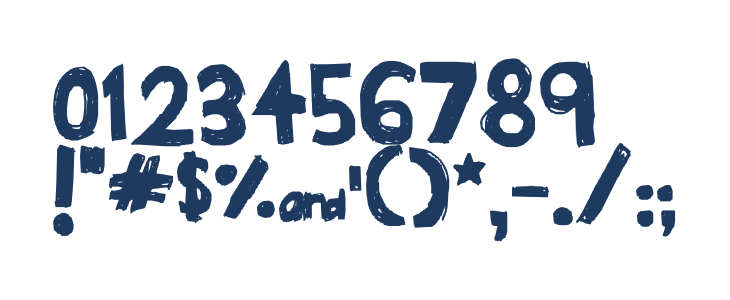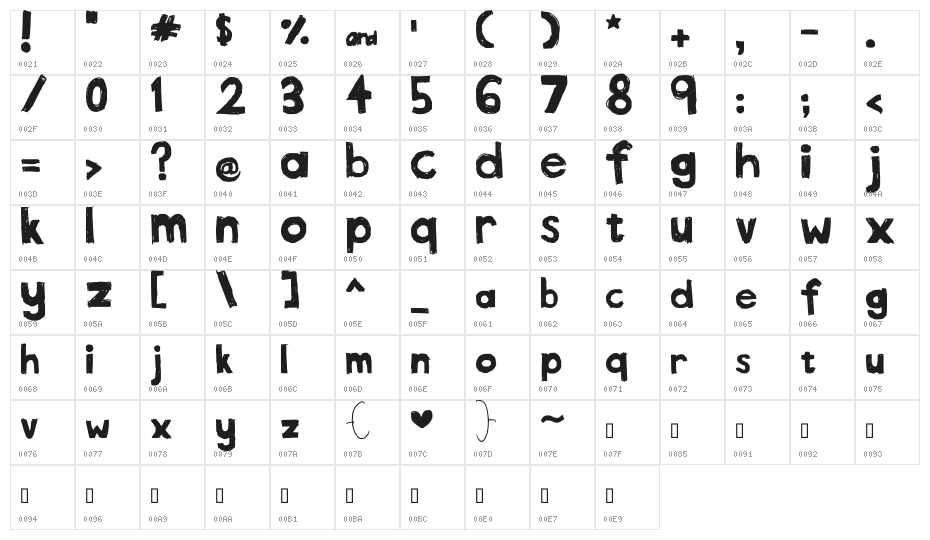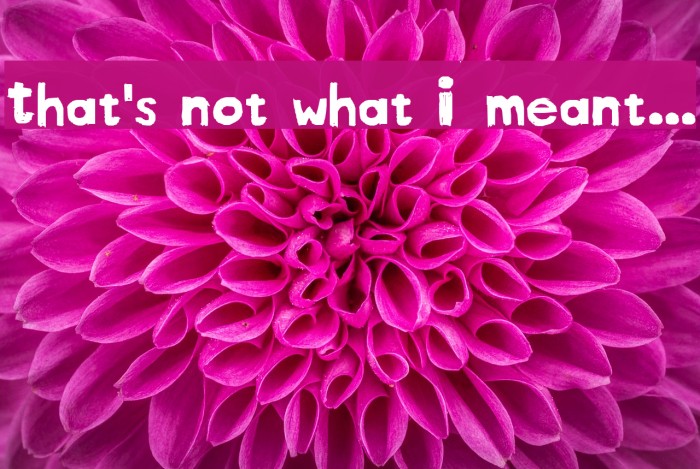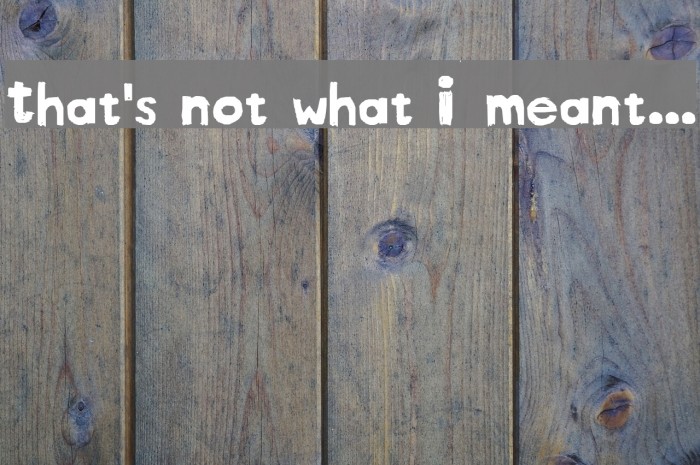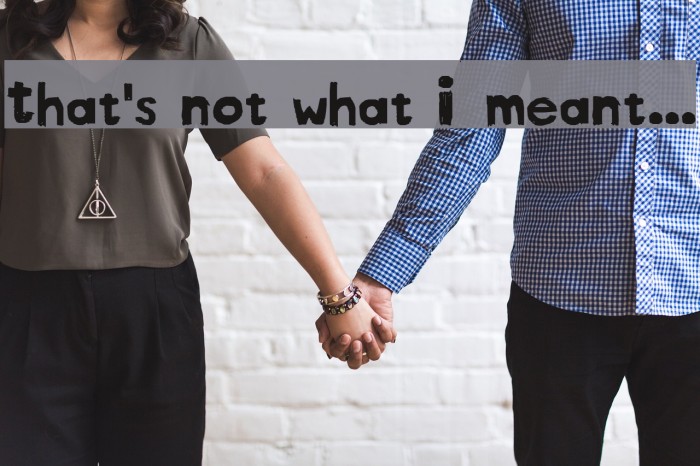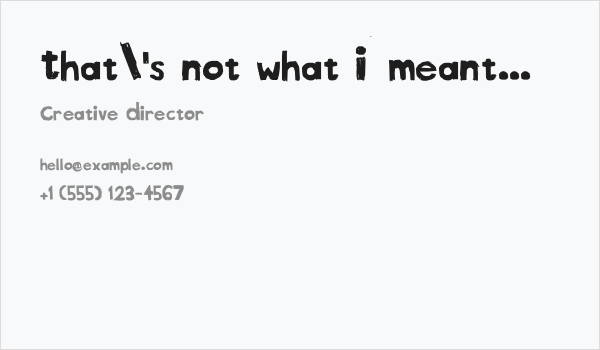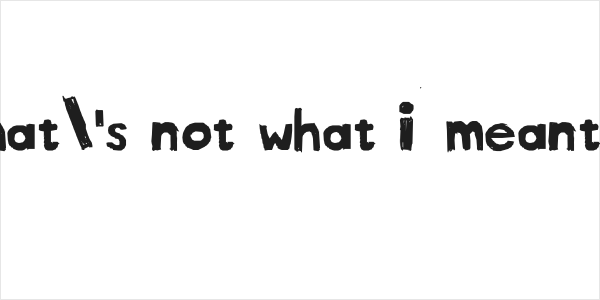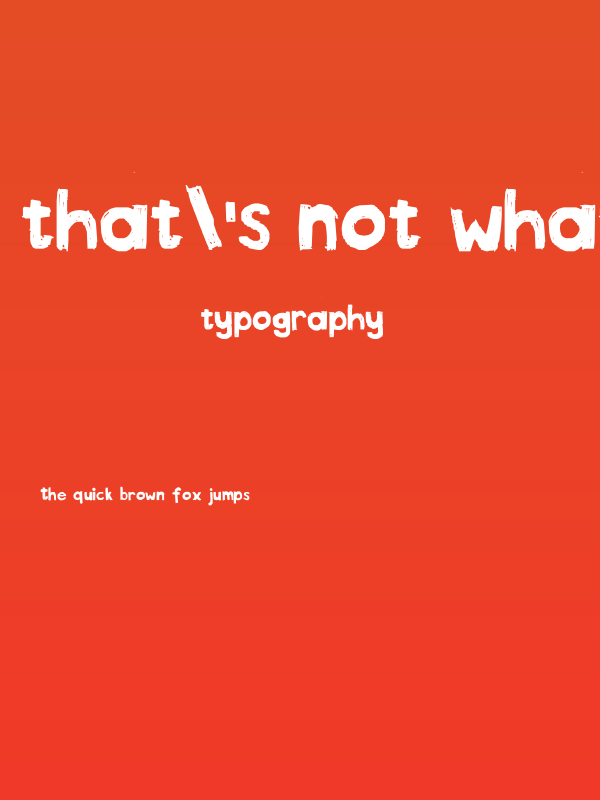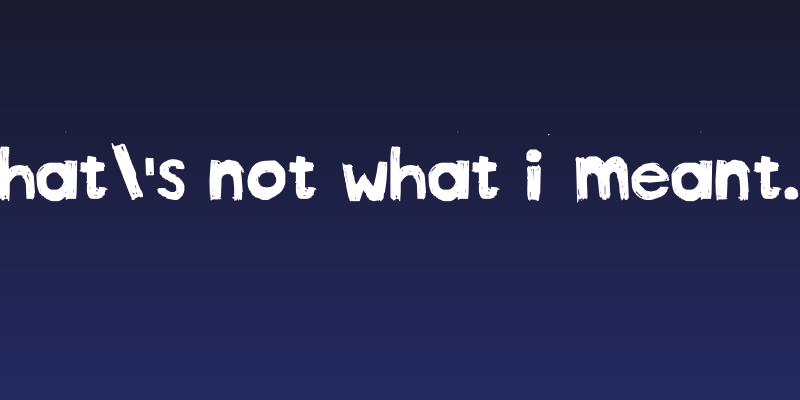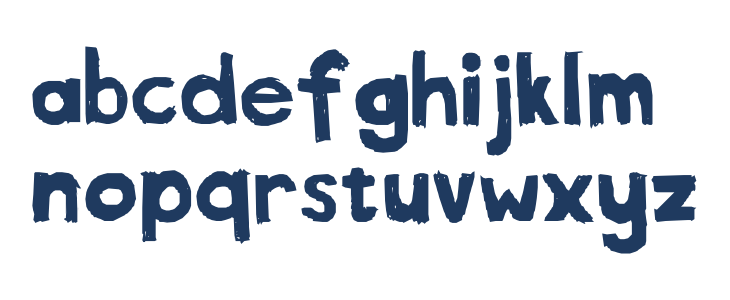
That's not what I meant... Font
That's not what I meant... Description
This font features a bold and expressive style with a hand-painted appearance. The characters are irregular and slightly rough around the edges, giving it a raw, artistic feel. The strokes are thick and uneven, adding to its dynamic and energetic look. It captures a sense of spontaneity and creativity, making it ideal for projects that require a personal touch. The font includes a full set of uppercase and lowercase letters, numbers, and a variety of special characters, all maintaining the same bold, handcrafted aesthetic.
| Overall Style | Artistic, Expressive |
| Use Case | Headlines, Posters, Artistic Projects |
| Proposed Projects | Ideal for posters, album covers, artistic projects, and branding that requires a bold, creative touch. |